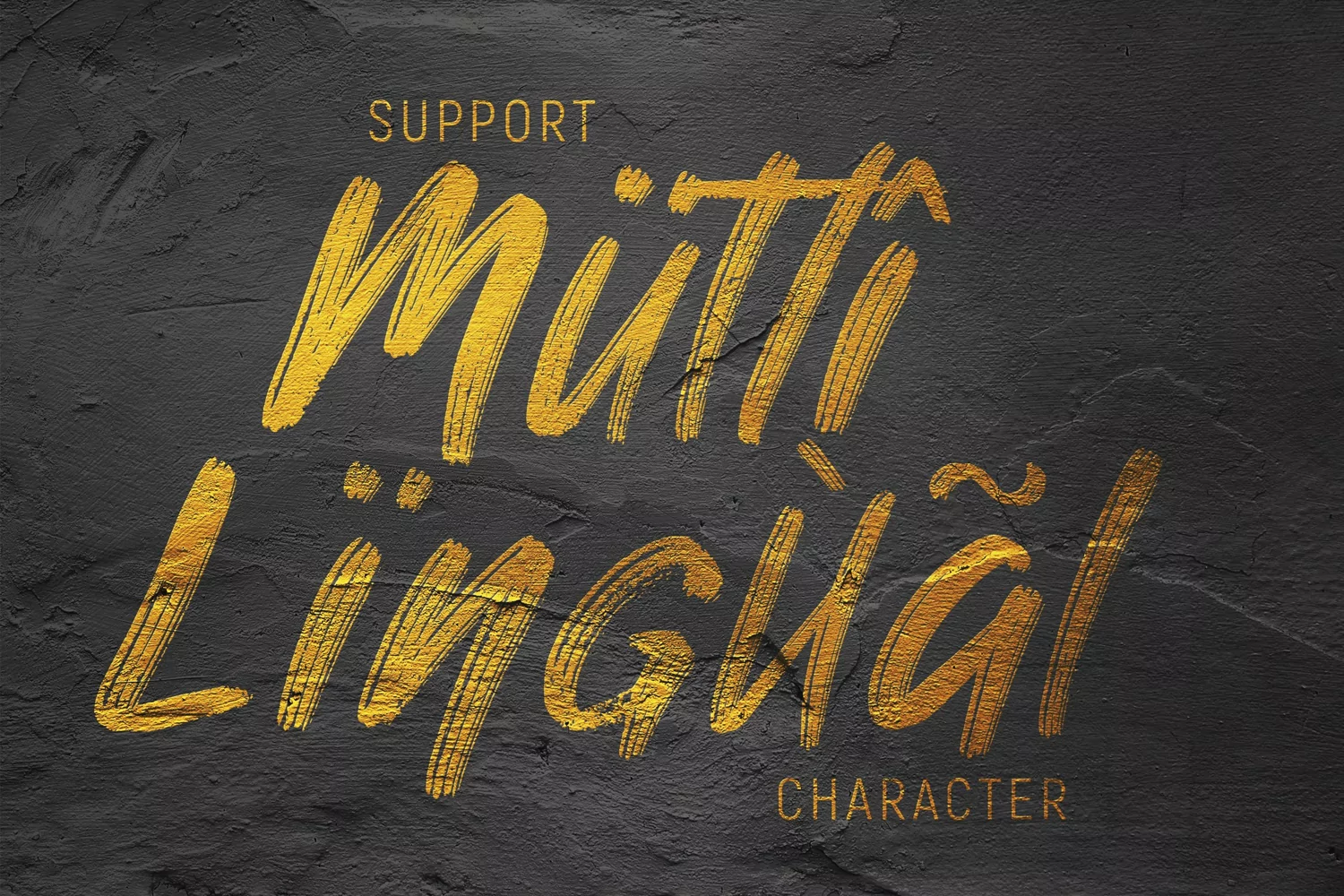
-- Decorative / Strong / Hand drawn --
Nuttyclash is a decorative brush font. Inspired by some gravity drawing style, we try to combine it with a decorative concept. it's perfect for you to show your design or product in professional way.
Nuttyclash works great in any branding, logos, magazines, banner, poster, flyer, and even packaging stuff.